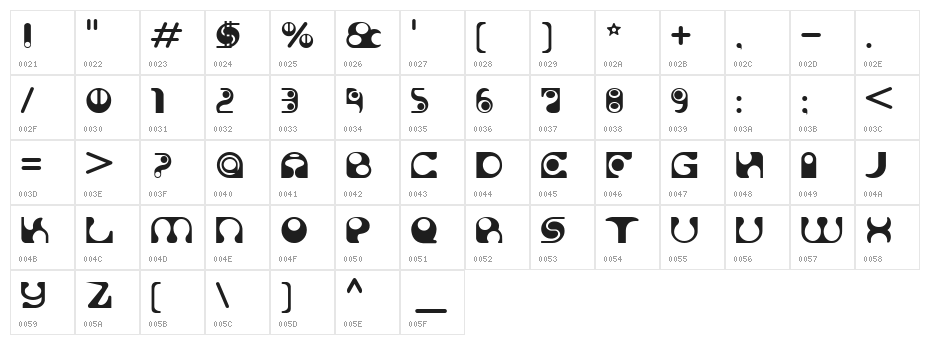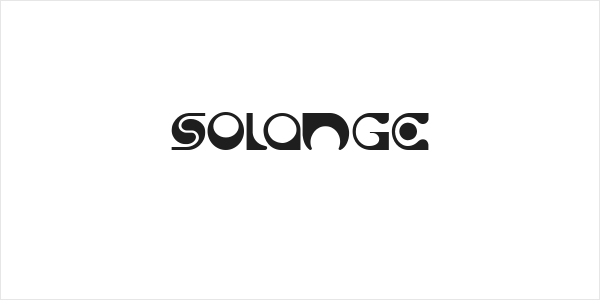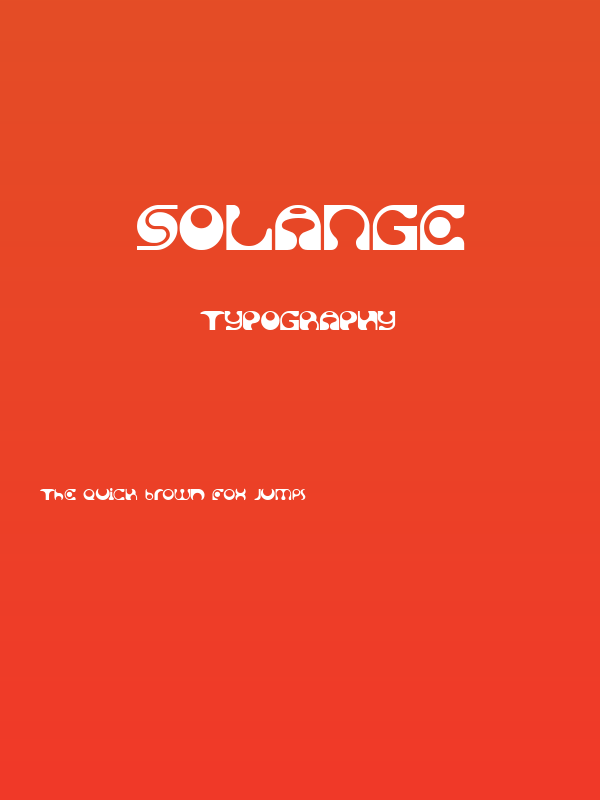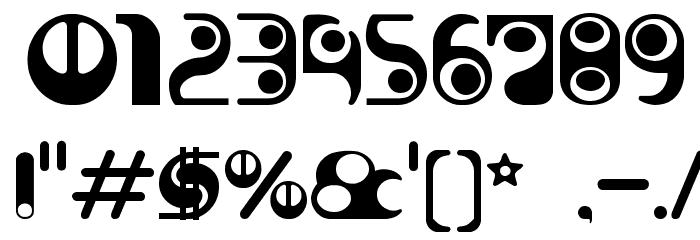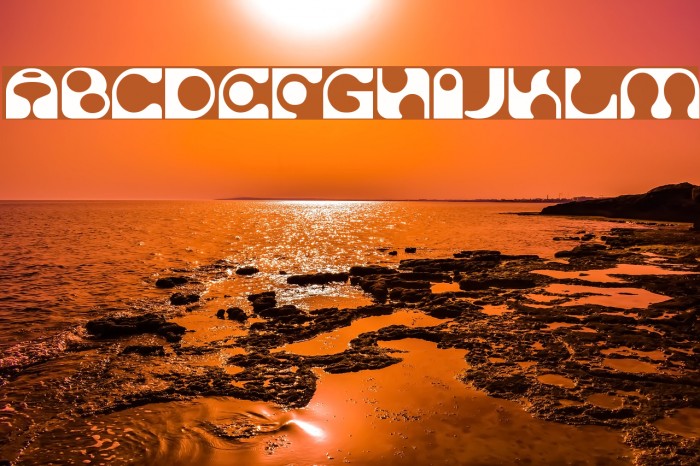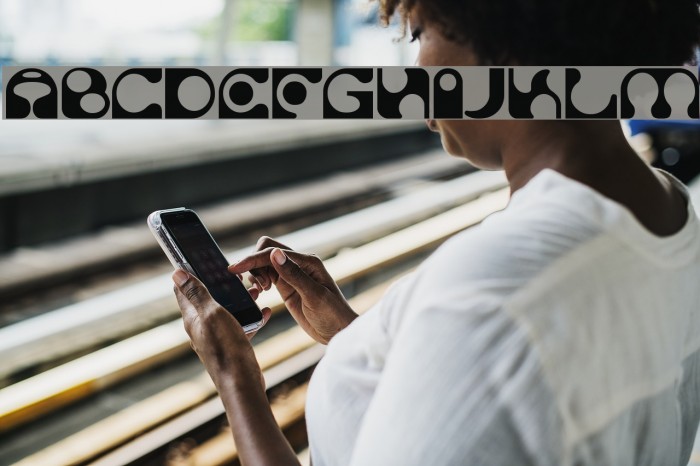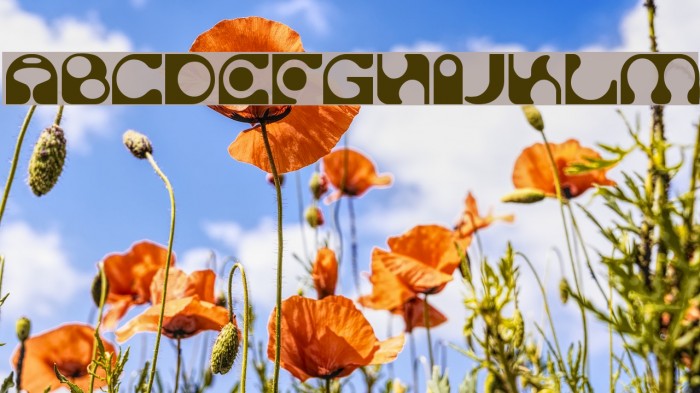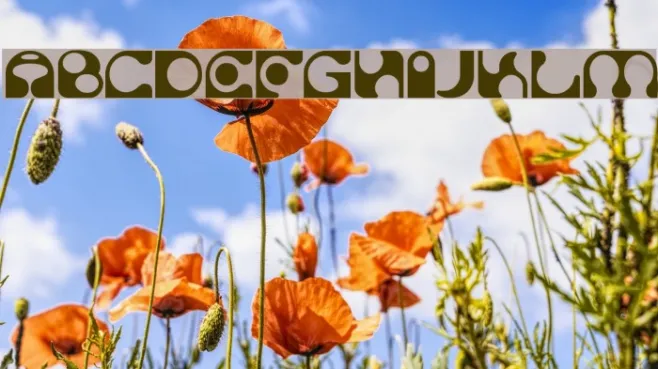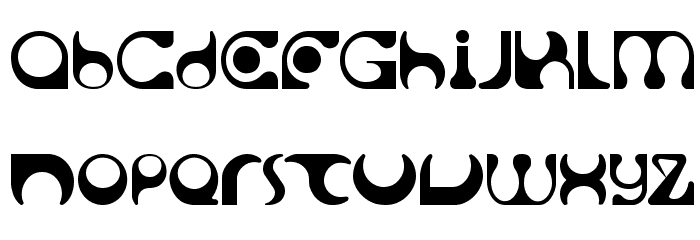
Solange Font
Solange Description
This font features a bold and playful design with a unique geometric style. The characters are constructed with a combination of circular and rectangular shapes, creating a modern and artistic appearance. The uppercase and lowercase letters maintain a consistent design language, with rounded edges and a sense of symmetry. The numbers and special characters follow the same aesthetic, ensuring a cohesive look across all glyphs. The font's boldness and distinctive style make it suitable for eye-catching designs.
| Proposed Projects | Ideal for branding, posters, album covers, and creative projects that require a modern and distinctive look. |